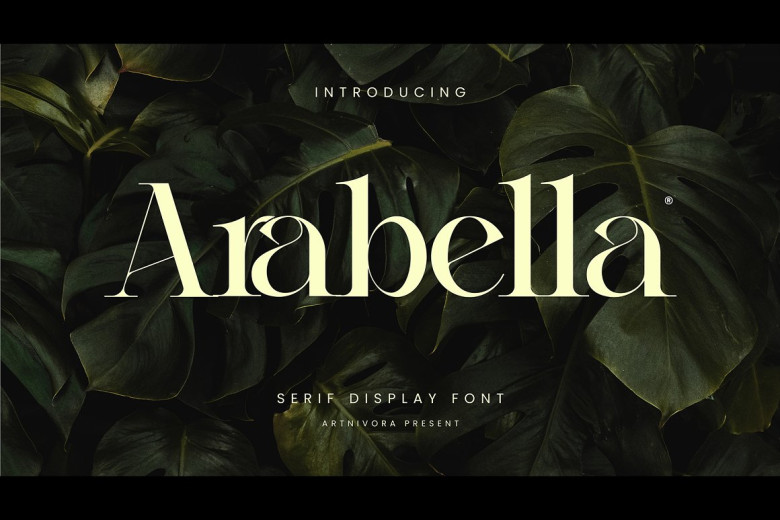
Arabella Serif Font
Arabella is a simple serif display typeface and an ideal font choice for use when designing logos, magazines, brochures, social media accounts etc.